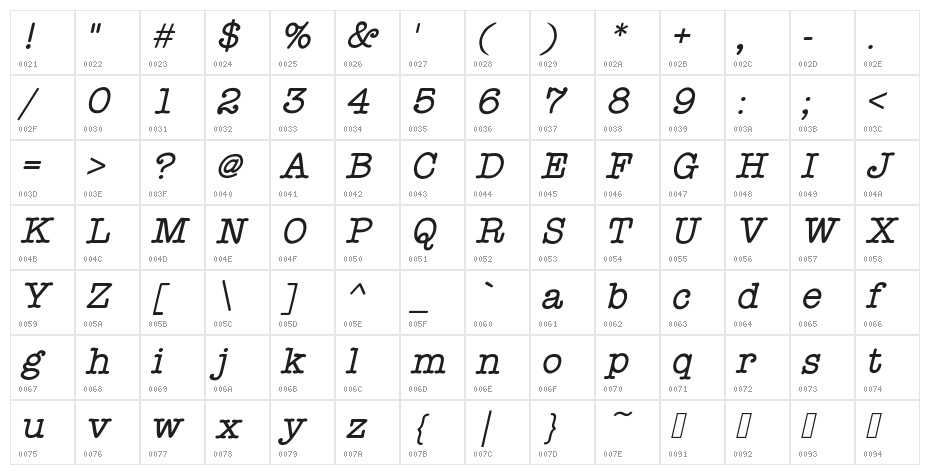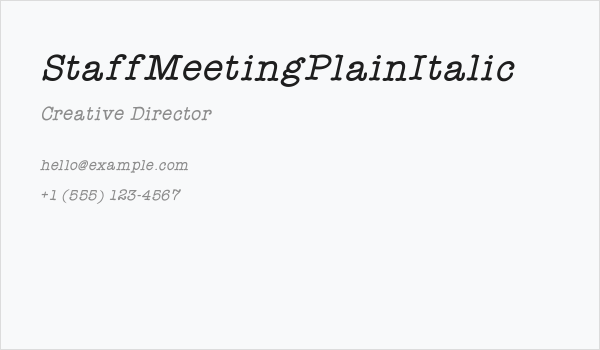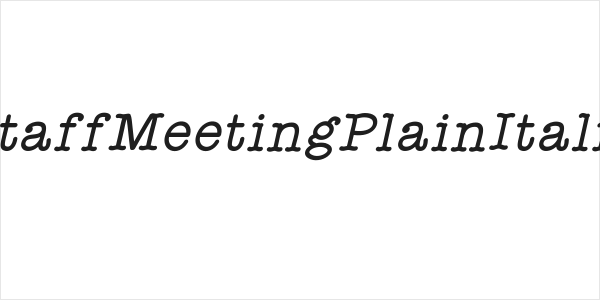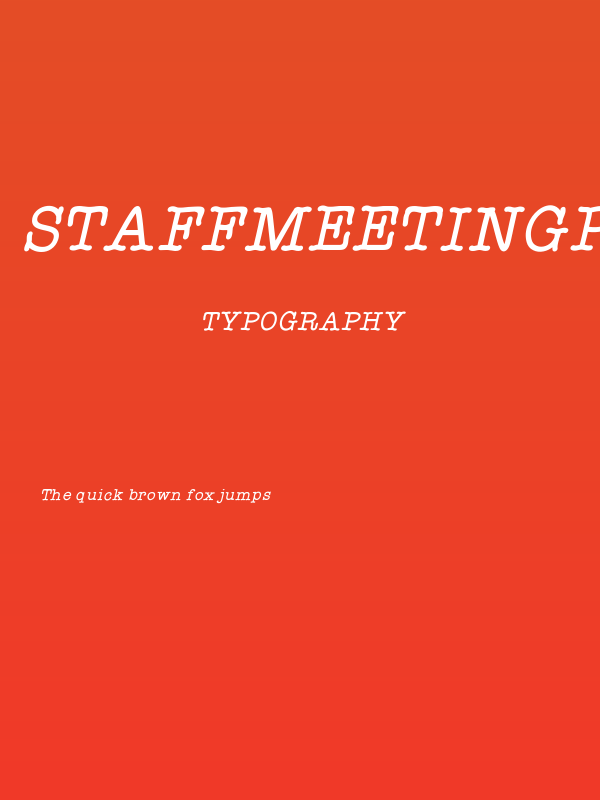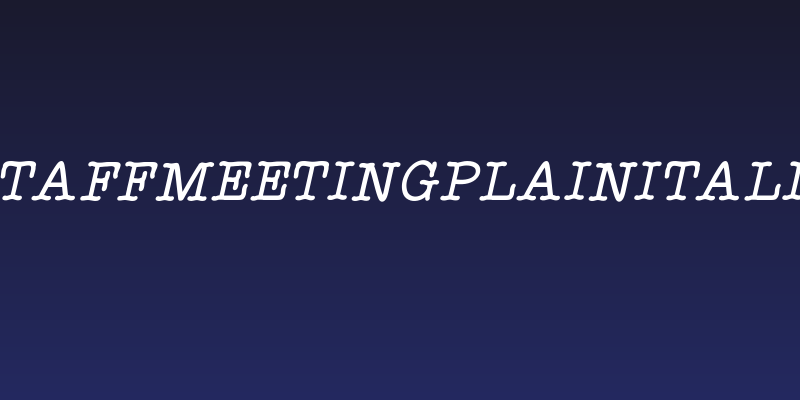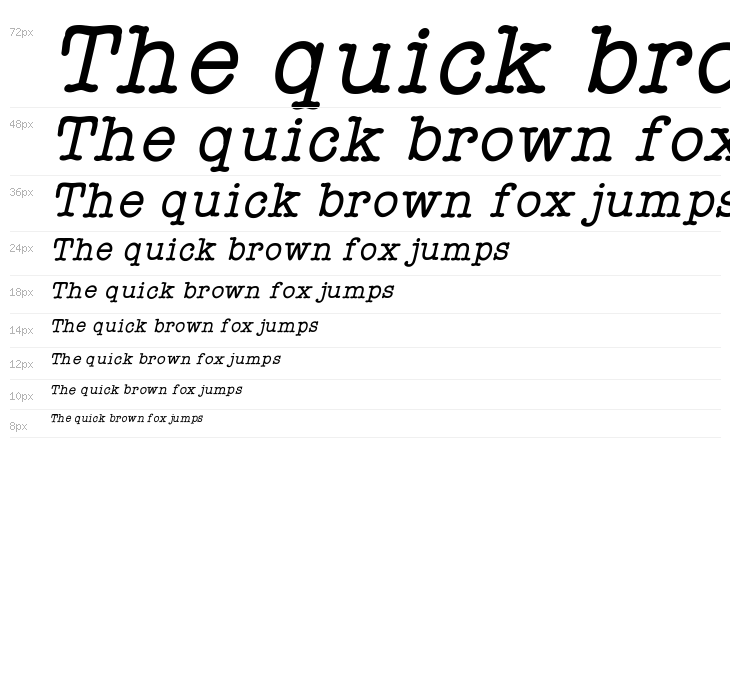
StaffMeetingPlainItalic Font
StaffMeetingPlainItalic Description
This font features a classic serif style with a distinct italic slant, giving it a sophisticated and elegant appearance. The characters are well-defined with moderate stroke contrast, providing a clear and readable text. The uppercase letters maintain a traditional form, while the lowercase letters have a slightly more playful and rounded design. Numbers are consistent with the overall style, ensuring uniformity across different text elements. Special characters are included, enhancing the font's versatility for various applications.
| Proposed Projects | Ideal for formal invitations, elegant branding, book covers, and editorial design. |